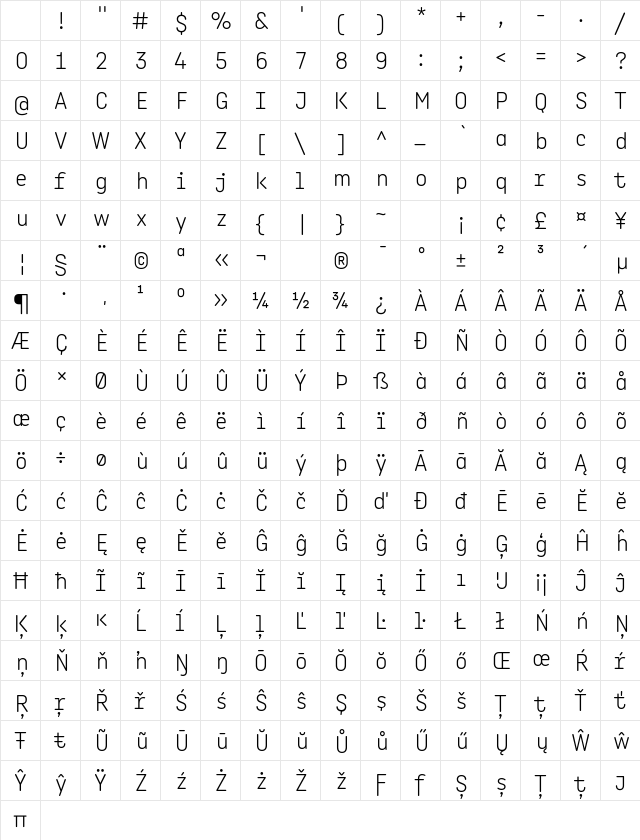
Complete Angus Light Regular glyph index. Displaying only characters natively supported by Angus Light Regular font.
Angus Light is a composed and adaptable typeface that performs quietly and consistently across a wide range of design contexts. Its slender proportions lend an understated elegance to any composition.